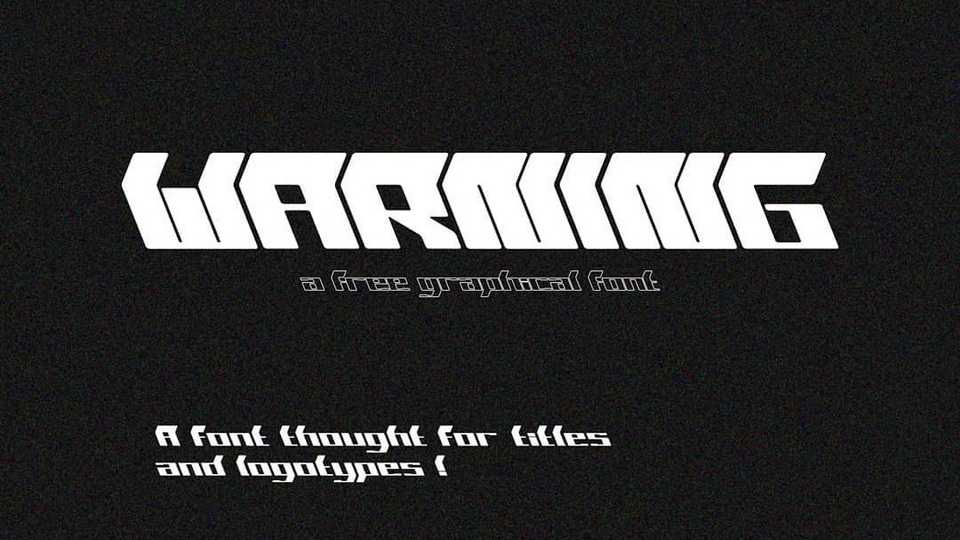
Download Warning font, a bold high contrast graphical typeface with a retro futuristic appearance. Warning is perfect for impactful titles and logotypes, posters, banners, short texts.
Designer: Thomas DMZL